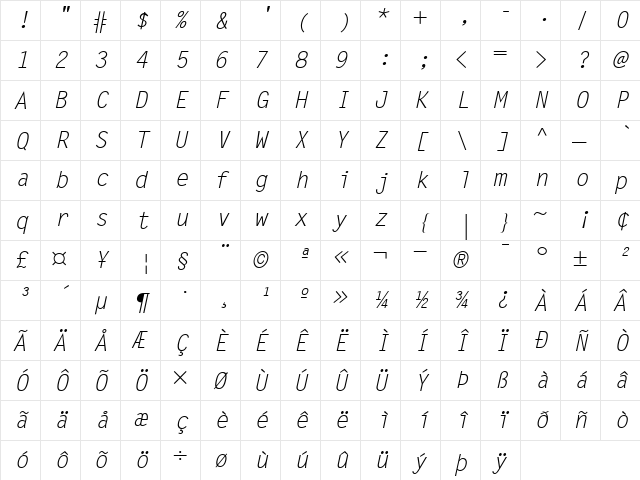
LetterGothicSlanted RomanItalic
Design Context for LetterGothicSlanted Typeface
LetterGothicSlanted has the quiet confidence of well-executed sans-serif typography: versatile, unobtrusive, and dependable at any size. The slanted form adds forward momentum and visual energy.
Font Pairing: Works well alongside a characterful serif or display font that can carry the expressive load while LetterGothicSlanted handles the functional copy.
Pro Tip: Pair LetterGothicSlanted with a display or serif font for headlines — its neutral character makes it an excellent supporting player in complex typographic systems.